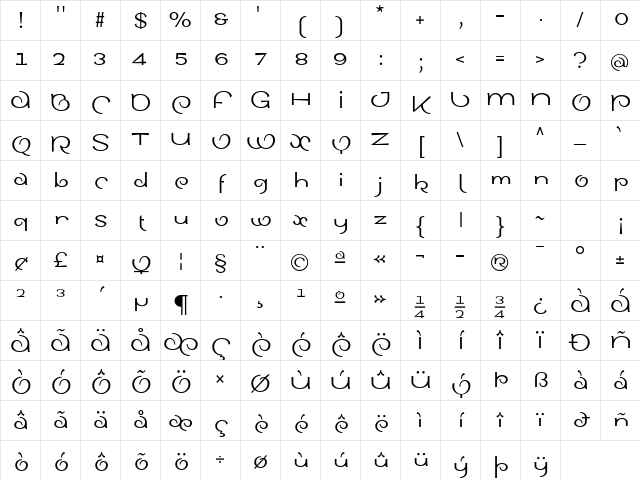
SinahSans LT Roman Regular Free Font
SinahSans LT Roman Regular
Designer: Peter Huschka
Design Context for SinahSans LT Roman
SinahSans LT Roman is a composed and adaptable typeface that performs quietly and consistently across a wide range of design contexts. Its slender proportions lend an understated elegance to any composition.